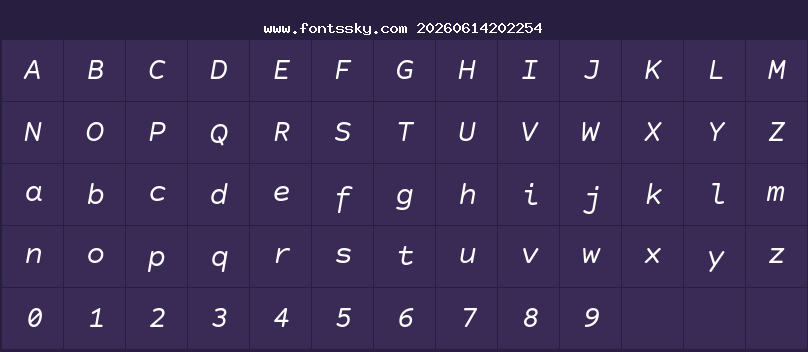
Courier Prime Code Preview
• Font Name: Courier Prime Code
• Full Font Name: Courier Prime Code Italic
• Designer: Alan Dague-Greene
• Manufacturer: Quote-Unquote Apps
About Courier Prime Code.ttf
Courier Prime Code.ttf is a modern, elegant sans-serif font designed for ultimate readability and visual harmony. Perfect for branding, headlines, web design, and print materials.